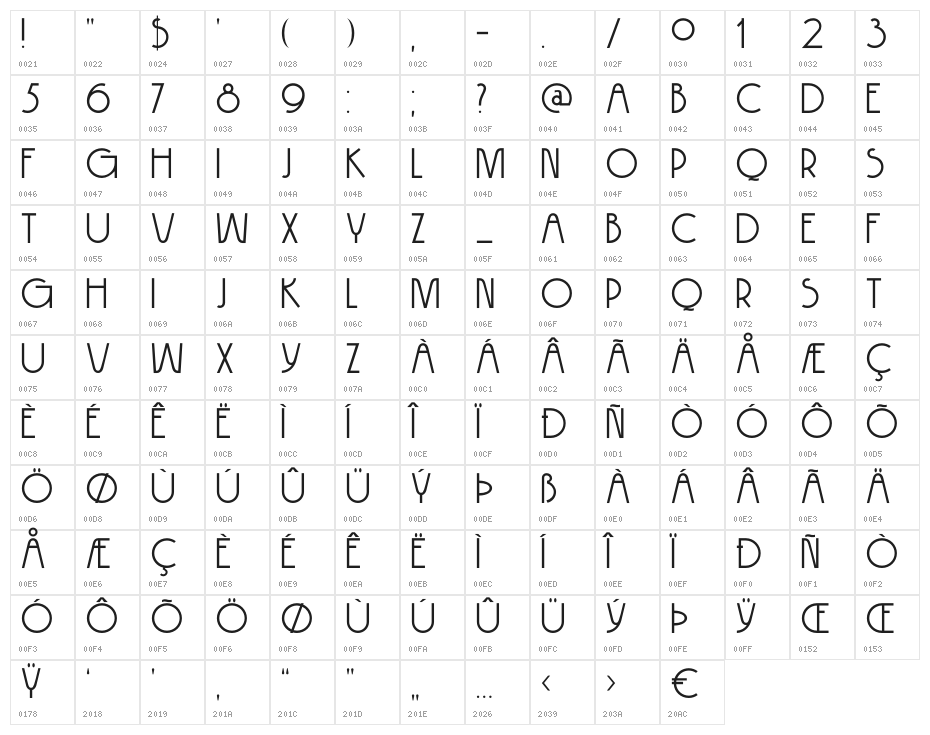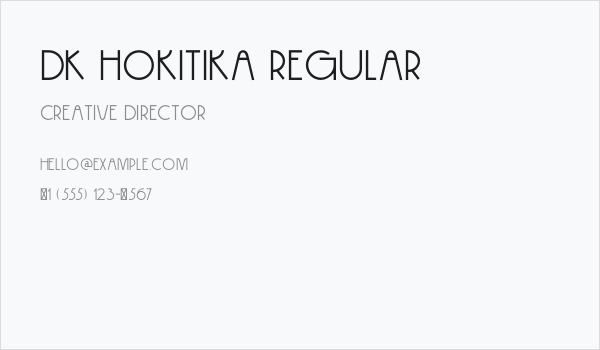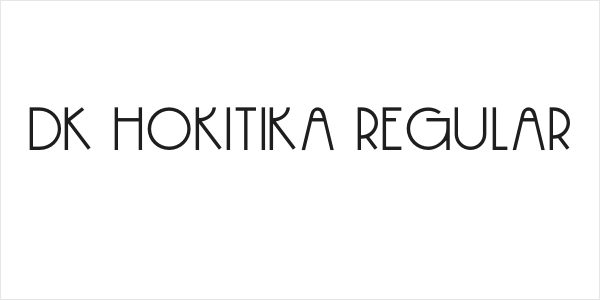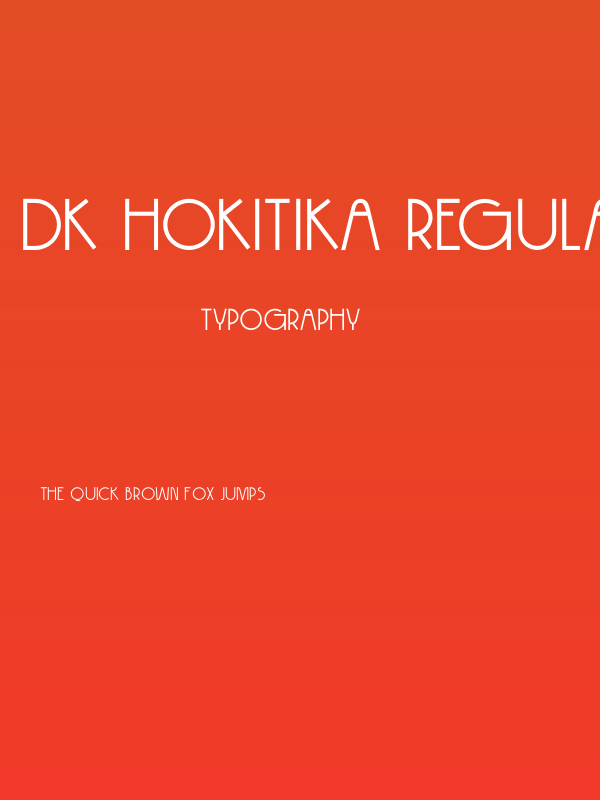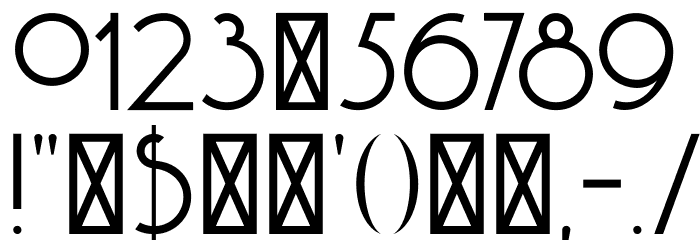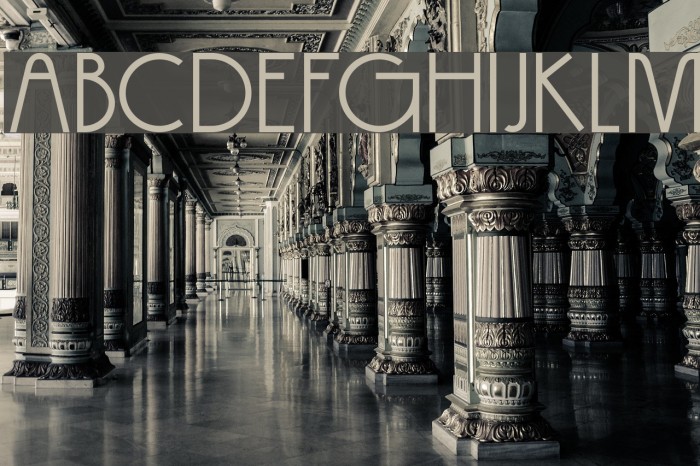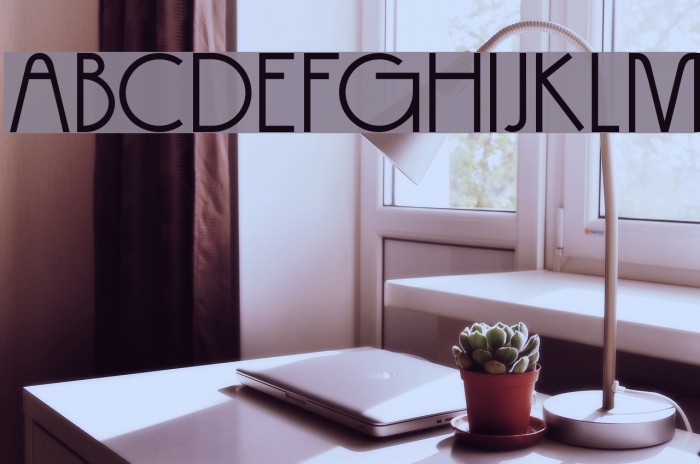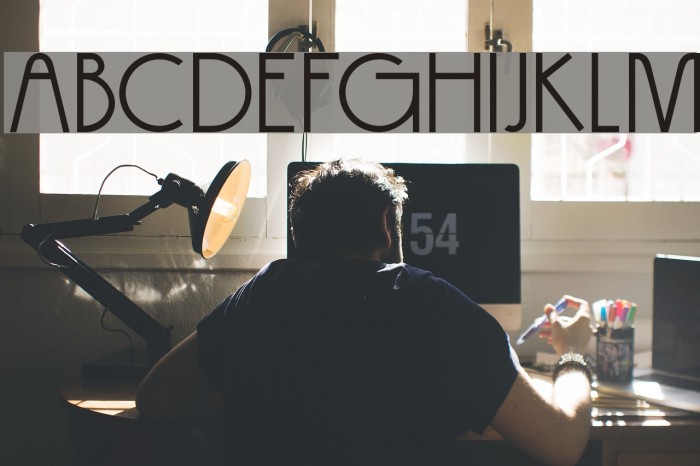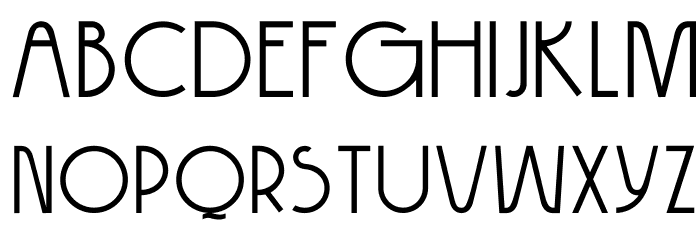
DK Hokitika Regular Font
This font features a clean, geometric design with a modern aesthetic. The characters are constructed with straight lines and sharp angles, giving them a sleek and contemporary look. The uppercase letters are tall and narrow, while the lowercase letters maintain a consistent height, creating a harmonious balance. The numerals are distinct and easy to read, with a uniform style that complements the alphabet. Special characters are included, maintaining the same geometric style. The overall appearance is minimalistic yet striking, making it suitable for a variety of design applications.
| Proposed Projects | Ideal for branding, advertising, and editorial design projects that require a modern and sophisticated touch. |